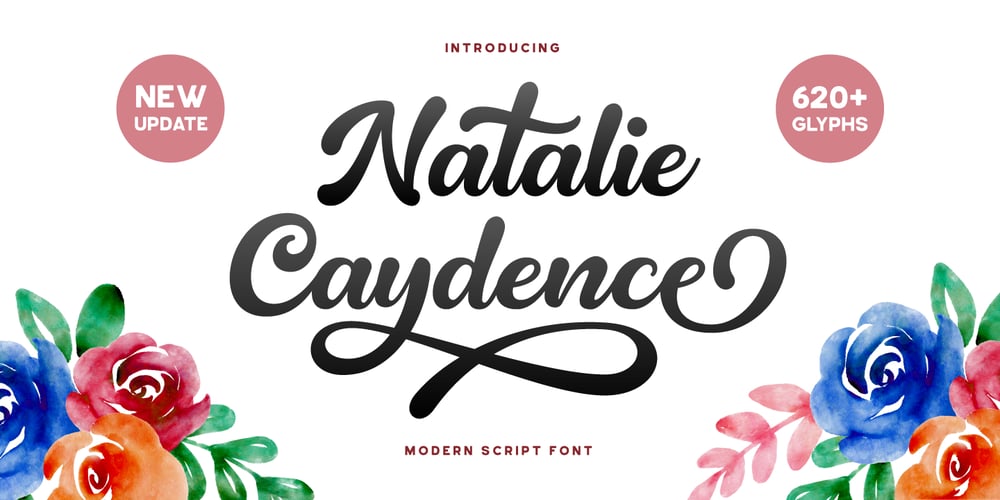
Natalie Caydence Font Family was designed by Akhmad Reza Fauzi and published by Grezline Studio. Natalie Caydence contains 1 styles and family package options. Natalie Caydence is an incredibly distinct, delicate and timeless script font. It looks stunning on wedding invitations, thank you cards, quotes, greeting cards, logos, business cards and every other design which needs a handwritten touch.Feature :- A lot of Alternates ( With a Total of 620+ Glyphs ) – Multilingual Language- Works on PC & Mac- Simple installations- Accessible in the Adobe Illustrator, Adobe Photoshop, Adobe InDesign, even works on Microsoft Word.